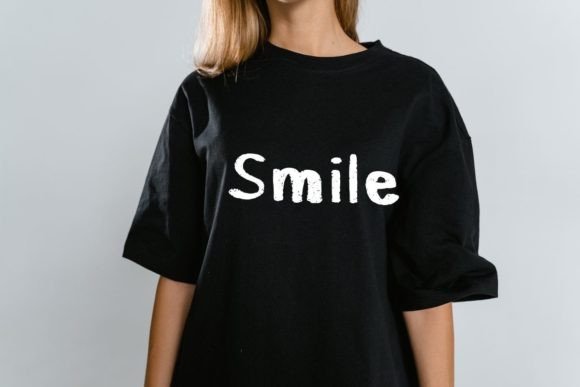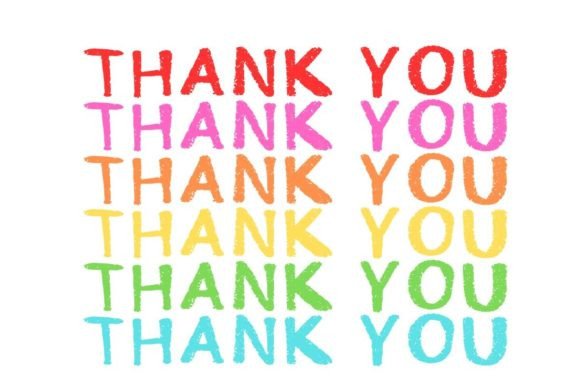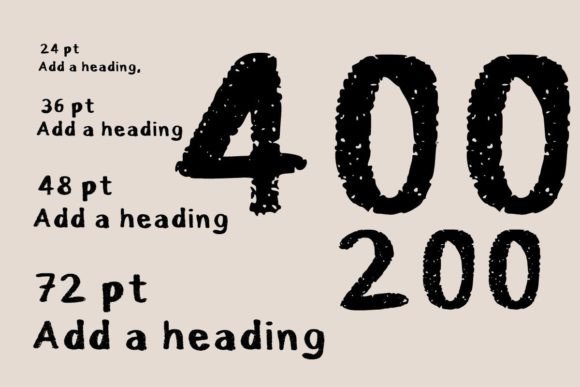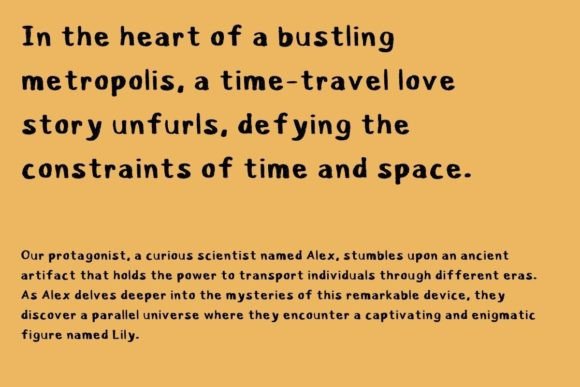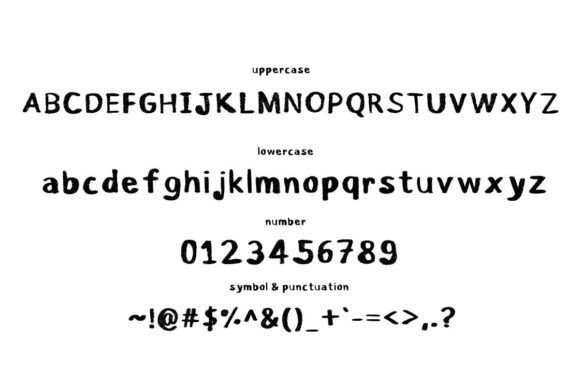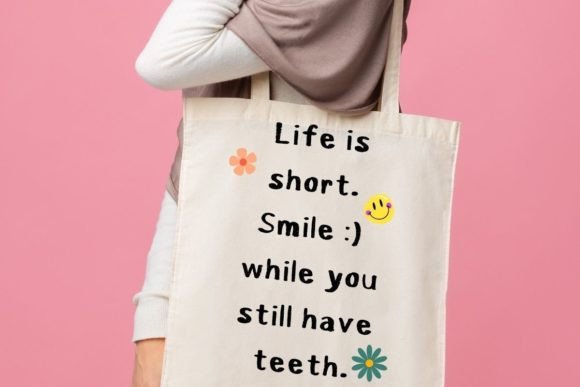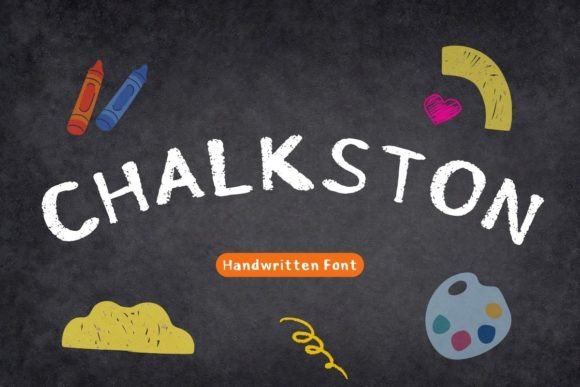
Introducing Chalkston Font: The Ultimate Chalk Style Handwritten Font
Are you looking for a font that can add a touch of nostalgia and playfulness to your designs? Look no further than Chalkston Font, a bold chalk style handwritten font that is perfect for headlines, titles, and attention-grabbing text elements. With its rough texture and authentic chalkboard look, Chalkston Font is sure to make your designs stand out.
What is Chalkston Font?
Chalkston Font is a unique and versatile font that is designed to mimic the look of chalk on a chalkboard. Its bold and playful style makes it ideal for use in a wide range of projects, from posters and flyers to social media graphics and website headers. Whether you’re a designer, crafty DIY enthusiast, or simply someone who loves to create, Chalkston Font is a great addition to your font collection.
Key Features of Chalkston Font
- Bold and Playful Style: Chalkston Font features a bold and playful style that is sure to grab attention.
- Rough Texture: The font’s rough texture gives it an authentic chalkboard look that is reminiscent of traditional chalk writing.
- Versatile: Chalkston Font can be used for a wide range of projects, from creative crafts to professional designs.
- Easy to Read: Despite its bold and playful style, Chalkston Font is easy to read, making it perfect for use in headlines and titles.
Uses for Chalkston Font
Chalkston Font is a versatile font that can be used for a wide range of projects, including:
- Posters and Flyers: Use Chalkston Font to create eye-catching posters and flyers that are sure to grab attention.
- Social Media Graphics: Add a touch of personality to your social media graphics with Chalkston Font.
- Website Headers: Use Chalkston Font to create bold and playful website headers that set the tone for your website.
- Crafting Projects: Chalkston Font is perfect for use in crafting projects, such as making signs, banners, and other DIY projects.
Tips for Using Chalkston Font
Here are a few tips for using Chalkston Font effectively:
- Use it for Headlines and Titles: Chalkston Font is perfect for use in headlines and titles, where its bold and playful style can really shine.
- Experiment with Colors: Chalkston Font looks great in a variety of colors, so don’t be afraid to experiment and find the perfect color for your design.
- Pair it with Other Fonts: Chalkston Font can be paired with other fonts to create a unique and interesting look.
Chalkston Font is a unique and versatile font that is perfect for designers, crafty DIY enthusiasts, and anyone who loves to create. With its bold and playful style, rough texture, and authentic chalkboard look, Chalkston Font is sure to add a touch of nostalgia and playfulness to your designs. Whether you’re working on a professional project or a creative craft, Chalkston Font is a great addition to your font collection.